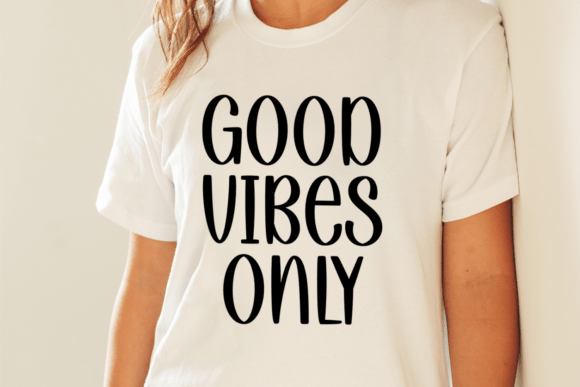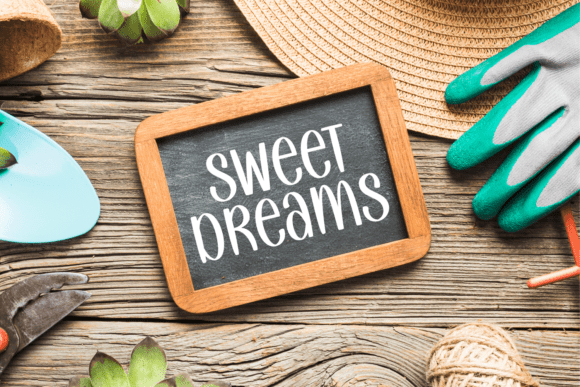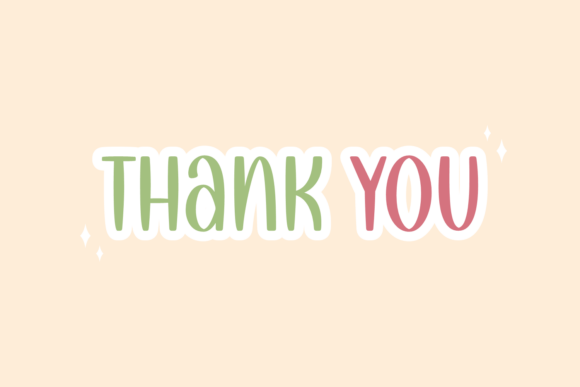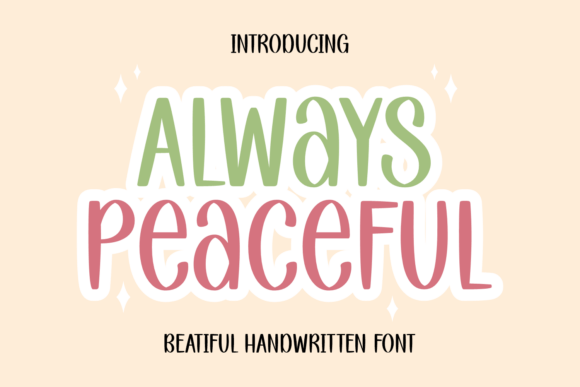
Introducing Always Peaceful Font: The Perfect Choice for Calming and Uplifting Designs
In the world of typography, fonts play a crucial role in conveying emotions and setting the tone for a project. If you’re looking for a font that exudes calmness, positivity, and warmth, look no further than Always Peaceful. This delightful handwritten font is designed to bring serenity and joy to your designs, making it perfect for a wide range of creative projects.
The Characteristics of Always Peaceful Font
Always Peaceful is a beautifully crafted handwritten font that boasts rounded, playful letterforms and harmonious spacing. The soft, gentle curves of each letter create an inviting and cheerful aesthetic that’s sure to capture the attention of your audience. The font’s unique combination of hand-crafted curves and soft pastel colors adds a touch of warmth and personality to any design.
Always Peaceful is an incredibly versatile font that can be used in a wide range of design projects. Its friendly and peaceful vibe makes it perfect for:
- Branding: Create a lasting impression with your brand identity by using Always Peaceful in your logos, business cards, and marketing materials.
- Greeting Cards: Add a personal touch to your greeting cards and invitations with the warm and inviting feel of Always Peaceful.
- Social Media: Stand out on social media with eye-catching graphics and posts that showcase the cheerful and uplifting qualities of Always Peaceful.
- Children’s Designs: Always Peaceful is an excellent choice for children’s books, educational materials, and activity sheets, as its playful and whimsical nature is sure to delight young audiences.
Why Choose Always Peaceful Font?
With so many fonts available, why choose Always Peaceful? Here are just a few reasons why this font stands out:
- Unique and Handcrafted: Always Peaceful is a carefully crafted font that offers a unique and personalized touch to your designs.
- Emotional Connection: The font’s peaceful and calming nature helps create an emotional connection with your audience, making your designs more relatable and engaging.
- Easy to Read: The clear and rounded letterforms of Always Peaceful make it easy to read, even at smaller font sizes.
- Versatile: Always Peaceful can be used in a wide range of design projects, from digital to print.
Tips for Using Always Peaceful Font Effectively
To get the most out of Always Peaceful, here are some tips for using the font effectively:
- Pair with Complementary Fonts: Combine Always Peaceful with complementary fonts to create visual interest and add depth to your designs.
- Experiment with Colors: Try pairing Always Peaceful with different colors to create unique and eye-catching combinations.
- Use for Headings and Body Text: Always Peaceful can be used for both headings and body text, making it a versatile addition to your design toolkit.
Always Peaceful is a delightful handwritten font that’s perfect for designers and crafters looking to add a touch of calmness and positivity to their projects. With its rounded, playful letterforms, harmonious spacing, and soft pastel colors, this font is sure to bring warmth and personality to any design. Whether you’re working on branding, greeting cards, social media, or children’s designs, Always Peaceful is an excellent choice. So why not give it a try and see how this beautiful font can elevate your designs?